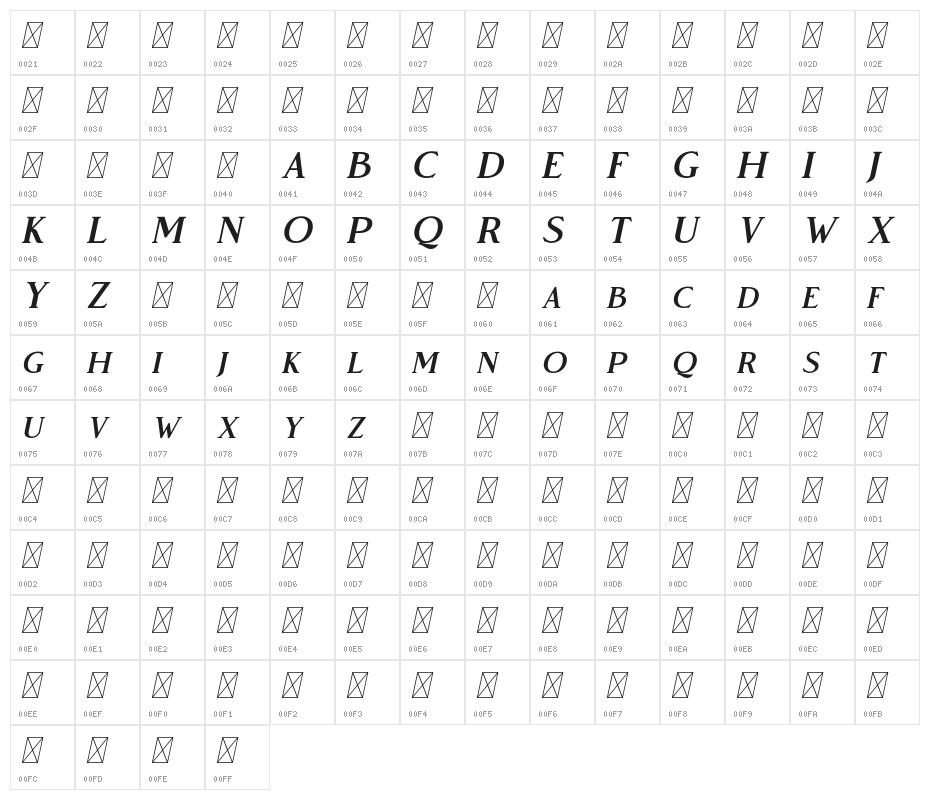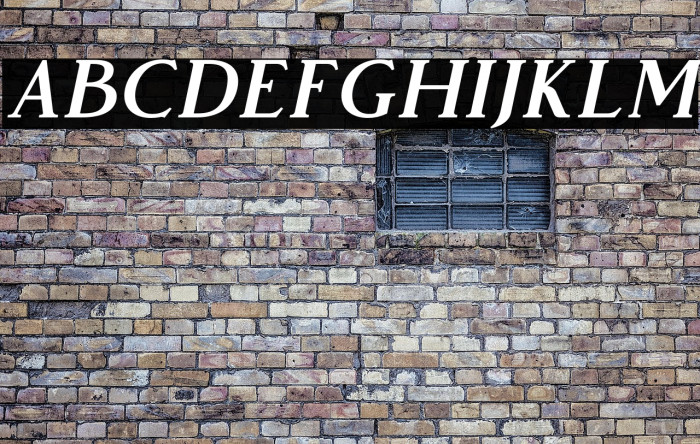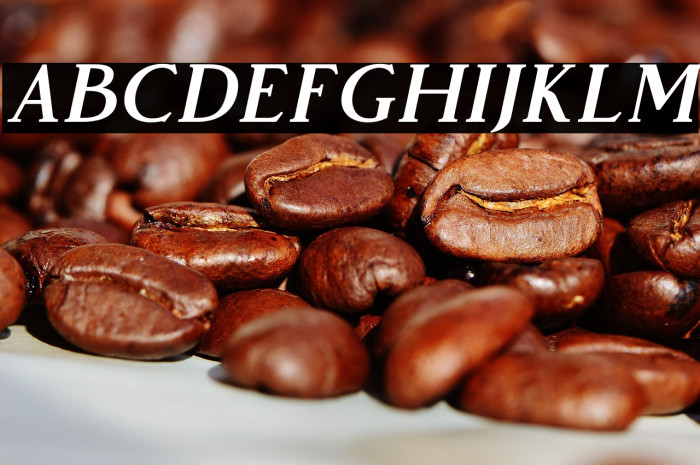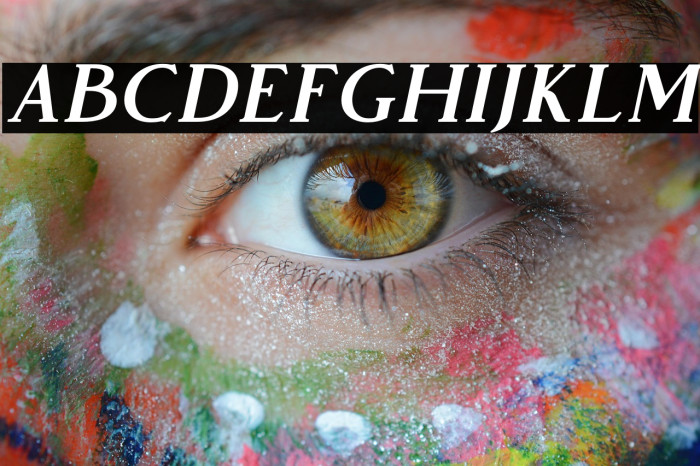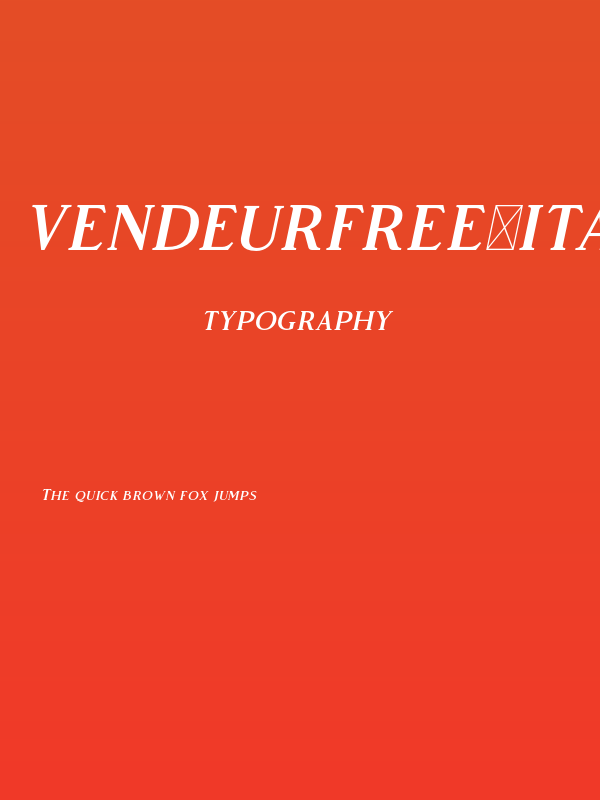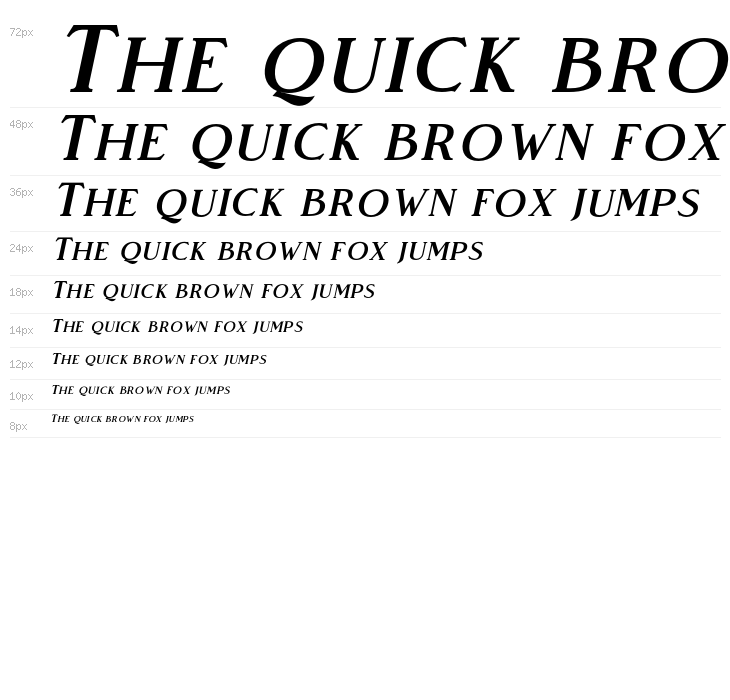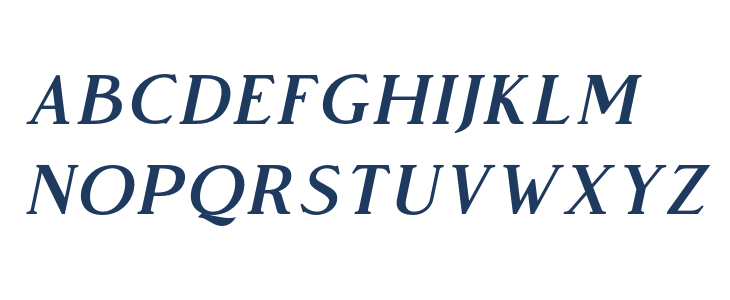
VendeurFree-Italic Font
VendeurFree-Italic Description
This font exhibits a classic italic style with a refined and elegant appearance. The uppercase letters are slightly slanted, giving a sense of motion and sophistication. The strokes are smooth and consistent, with moderate contrast between thick and thin lines. The overall design is clean and professional, making it suitable for formal and elegant applications. The characters are well-spaced, ensuring readability while maintaining an artistic flair.
| Use Case | Headlines, Invitations, Branding |
| Proposed Projects | Ideal for wedding invitations, formal event programs, elegant branding, and editorial design. |